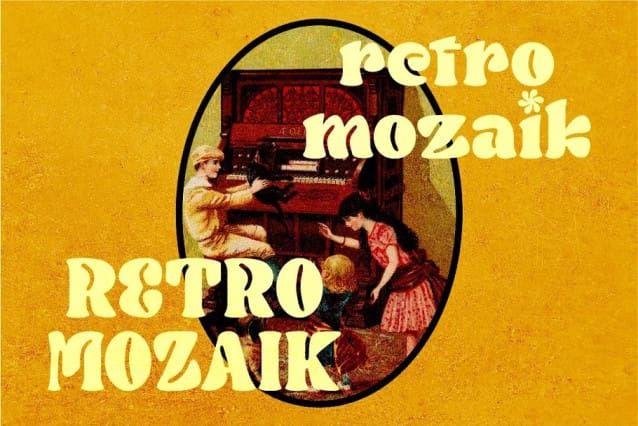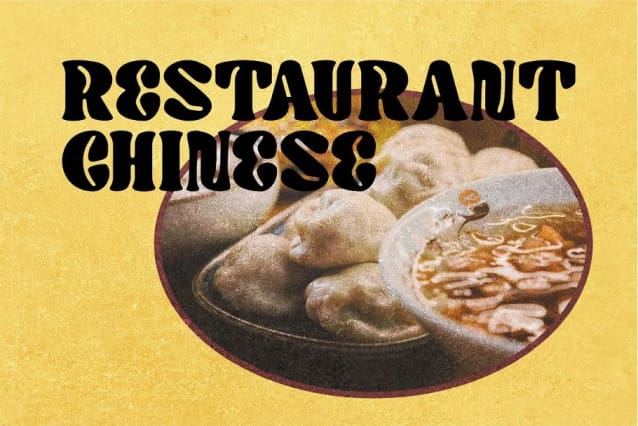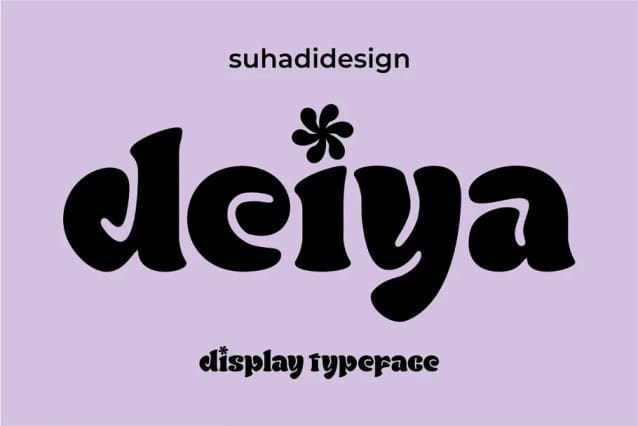
Deiya Display Font
Deiya Display Font, is a unique display serif font. We made this font unique, easy to use. Deiya Font is a great choice for brands, brand names, branding, labels, and other projects.